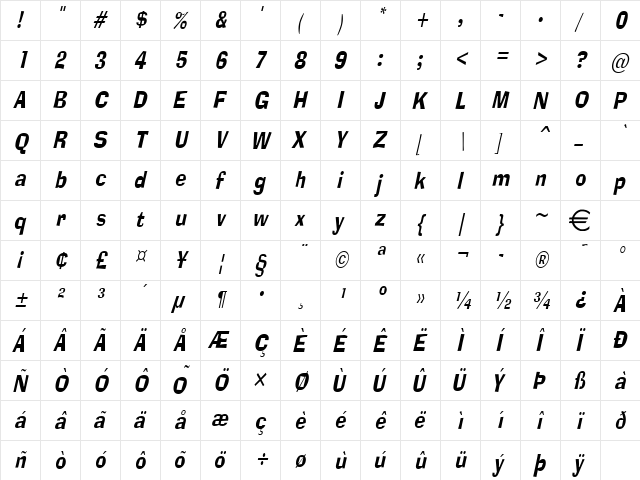
AlorNarrowCondensed Italic Font Preview
Design Context for AlorNarrowCondensed Typeface
AlorNarrowCondensed offers clean, dependable letterforms without strong stylistic allegiance, making it a practical choice for designers who need flexibility. Its italic angle brings a sense of urgency and motion to the letterforms. The condensed width makes it efficient for tight spaces without sacrificing legibility.
Pro Tip: Try AlorNarrowCondensed for annotation and caption copy alongside an upright companion — the contrast in angle creates a dynamic but ordered typographic system.